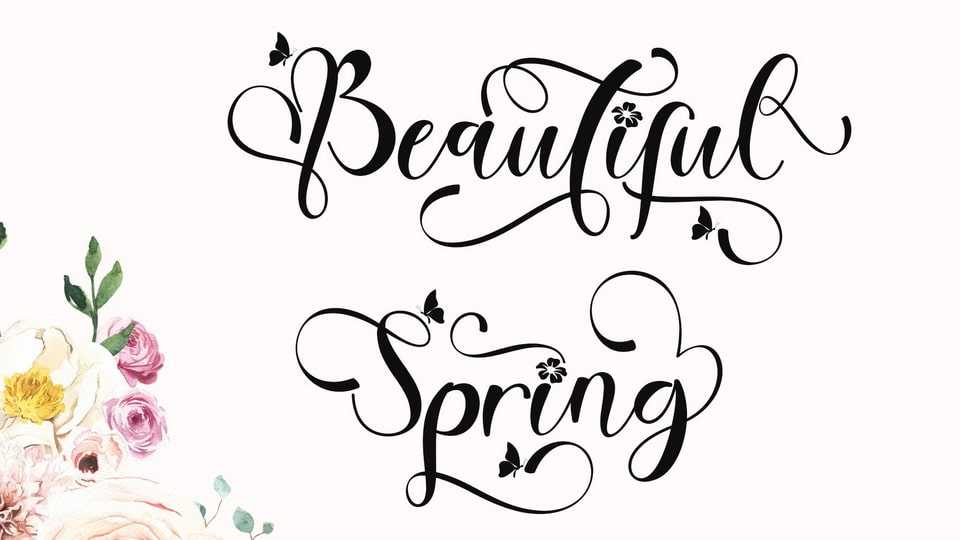
Download Beautiful Spring font, a beautiful, unique and natural typeface. Beautiful Spring is perfect for spring, summer, autumn, Christmas, winter, Valentine, mother day, wedding, photography and other moments.